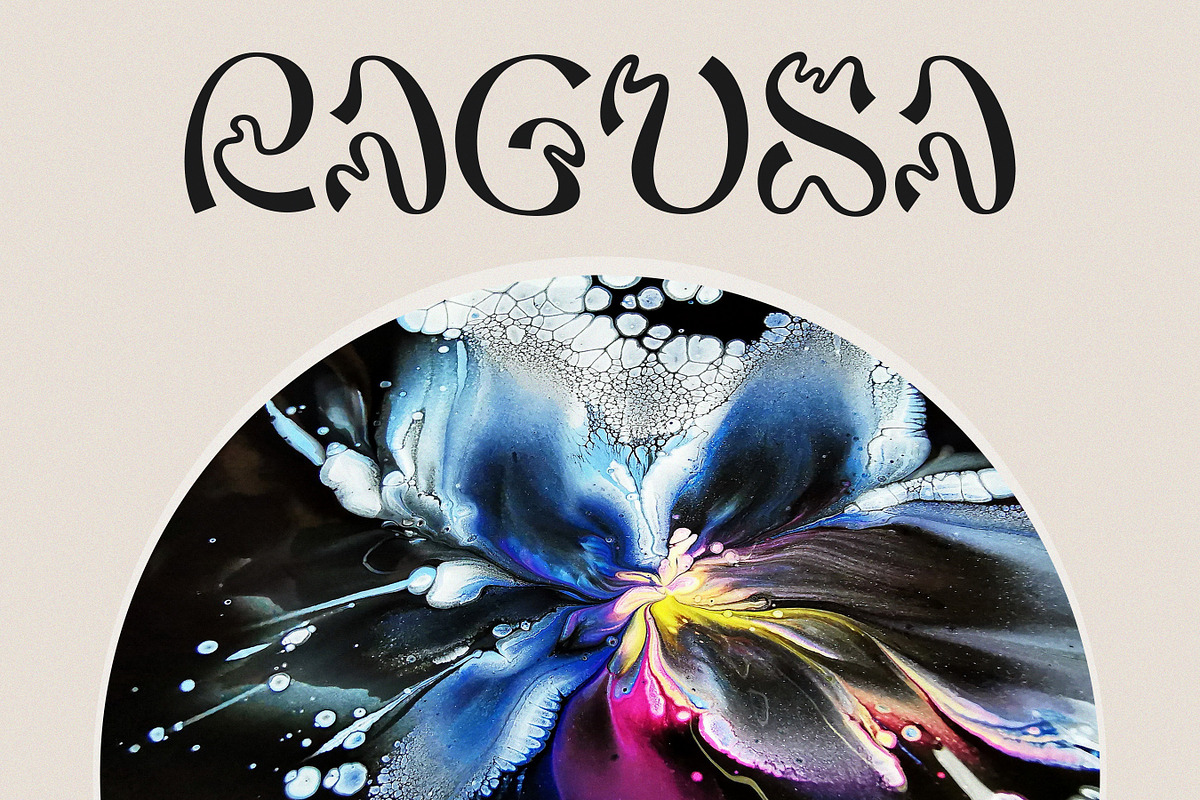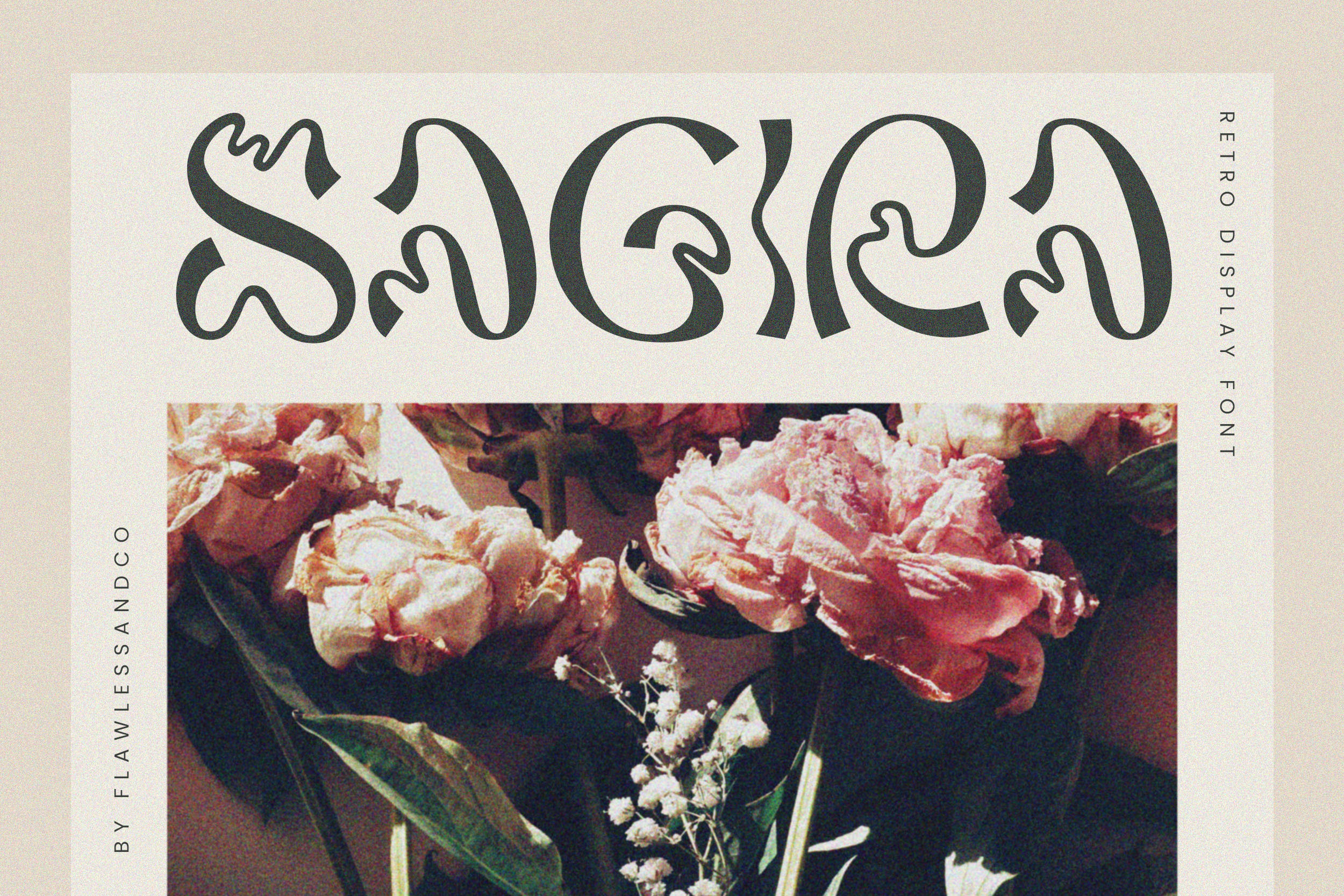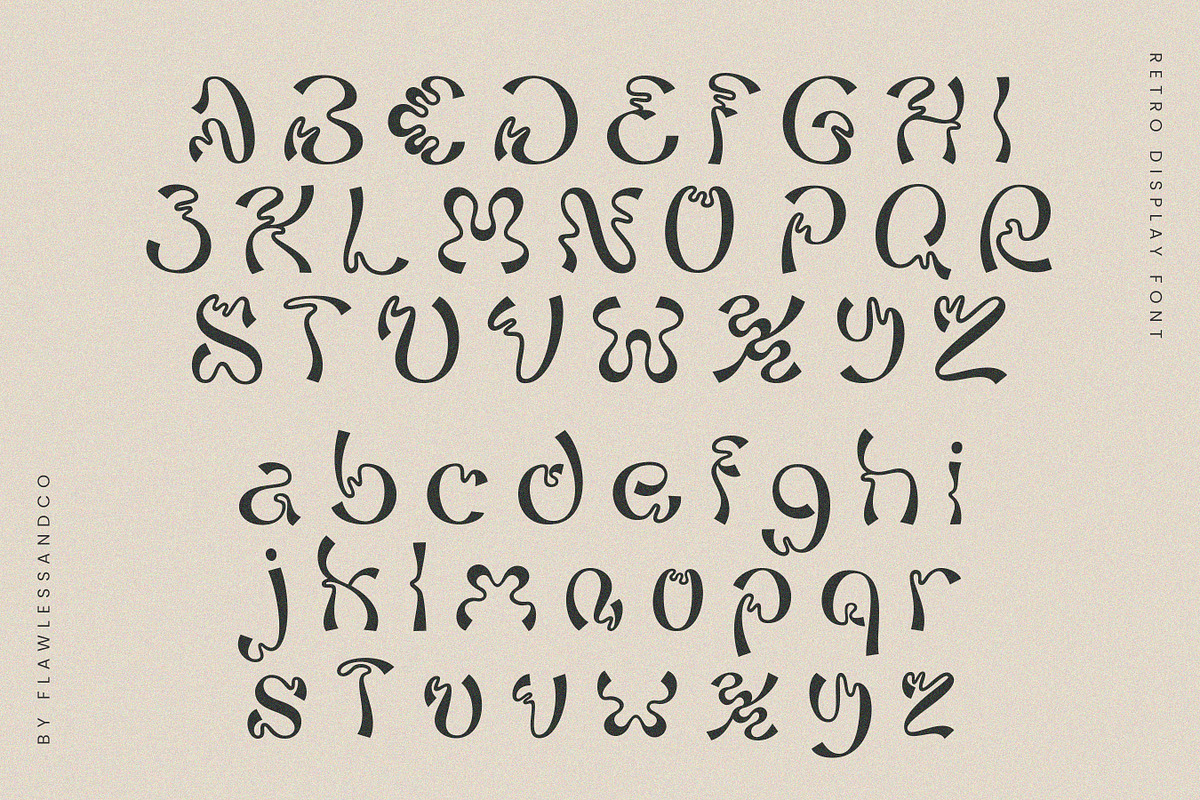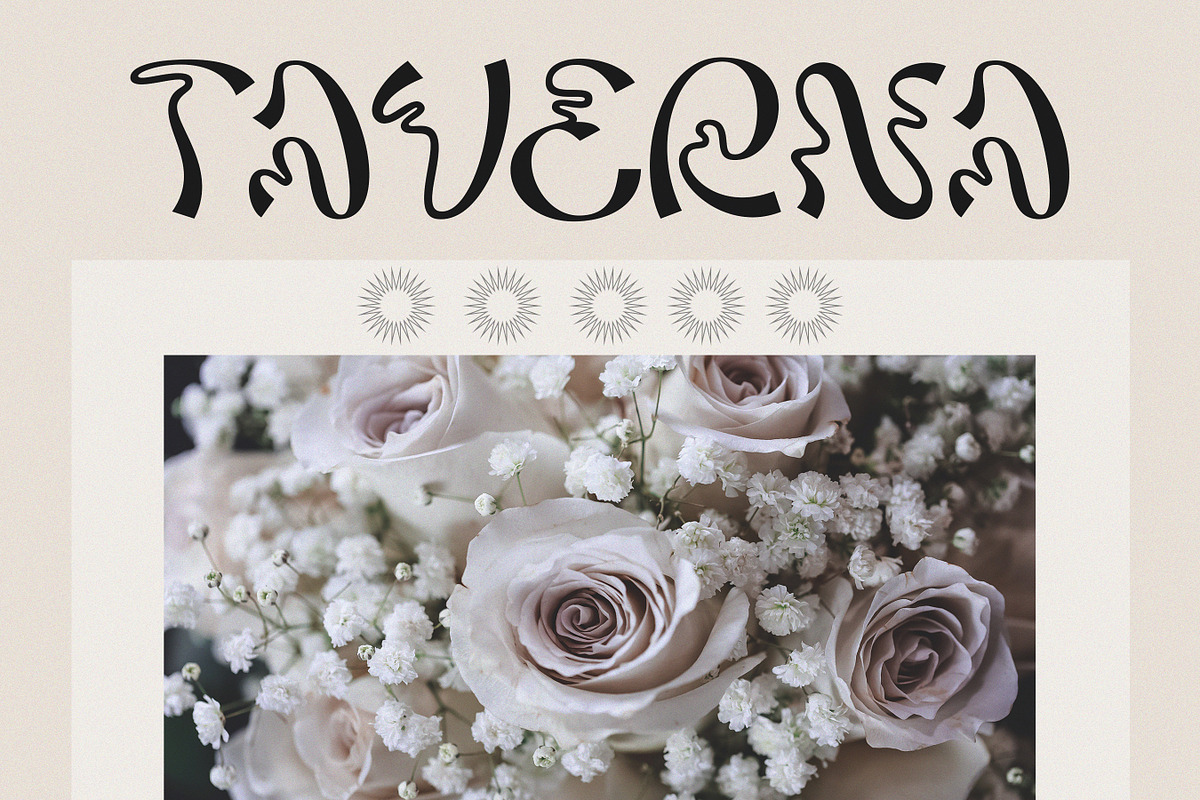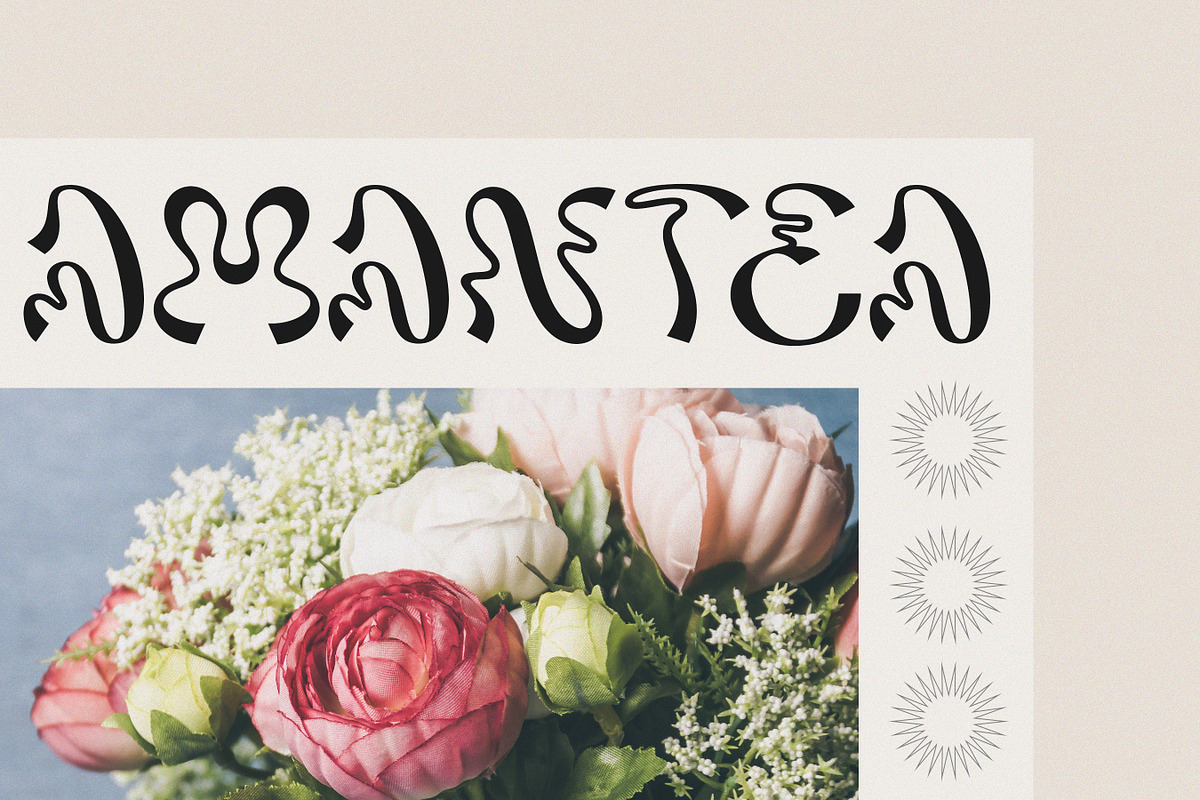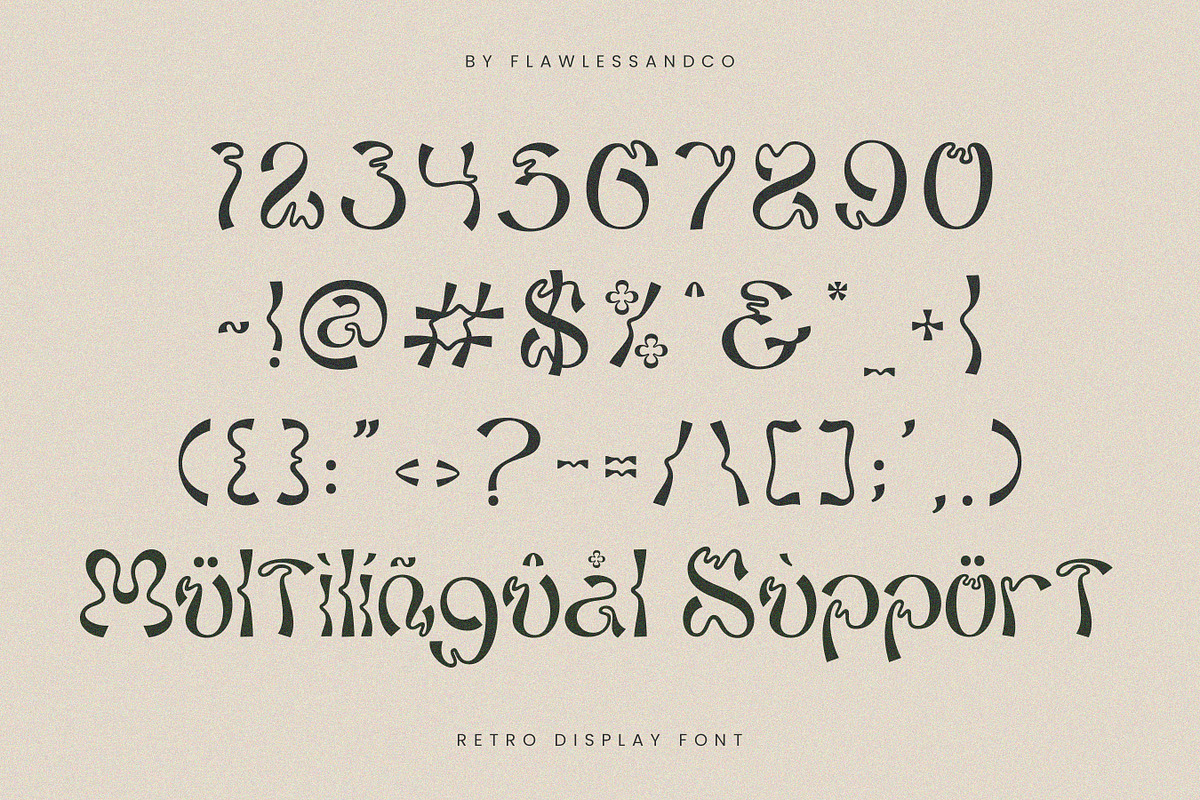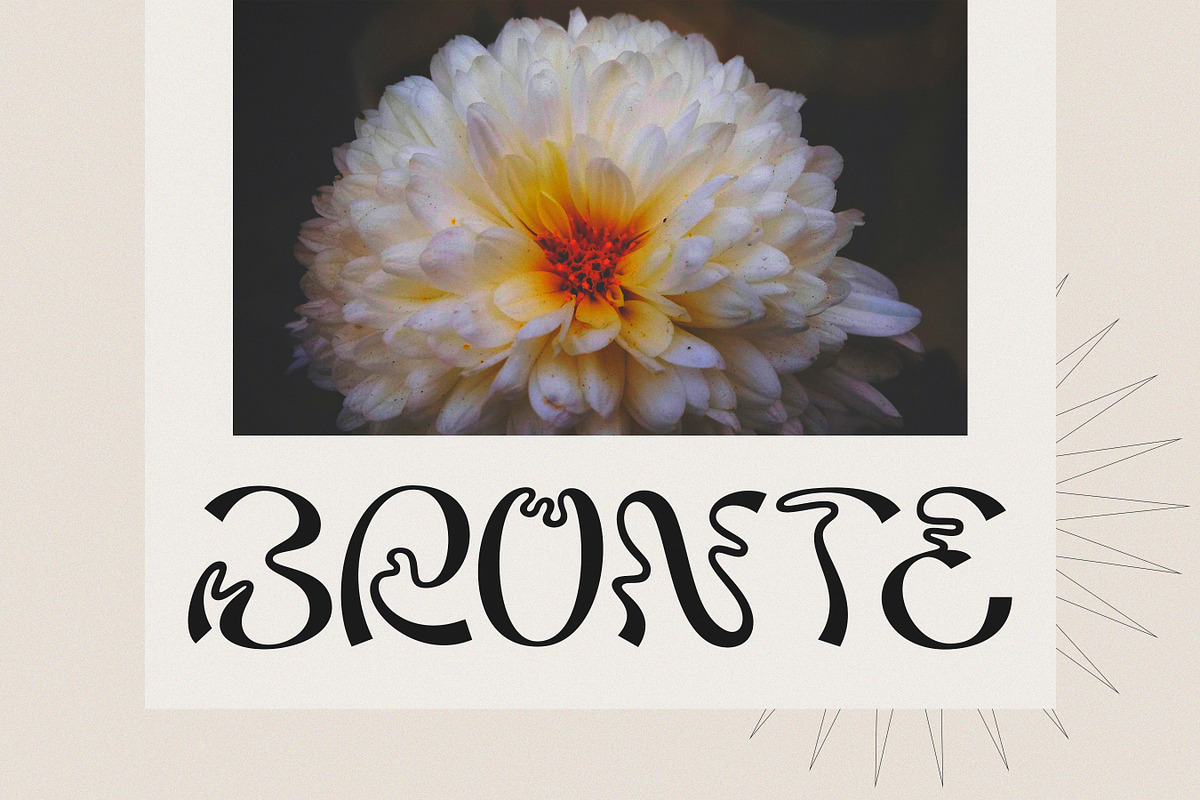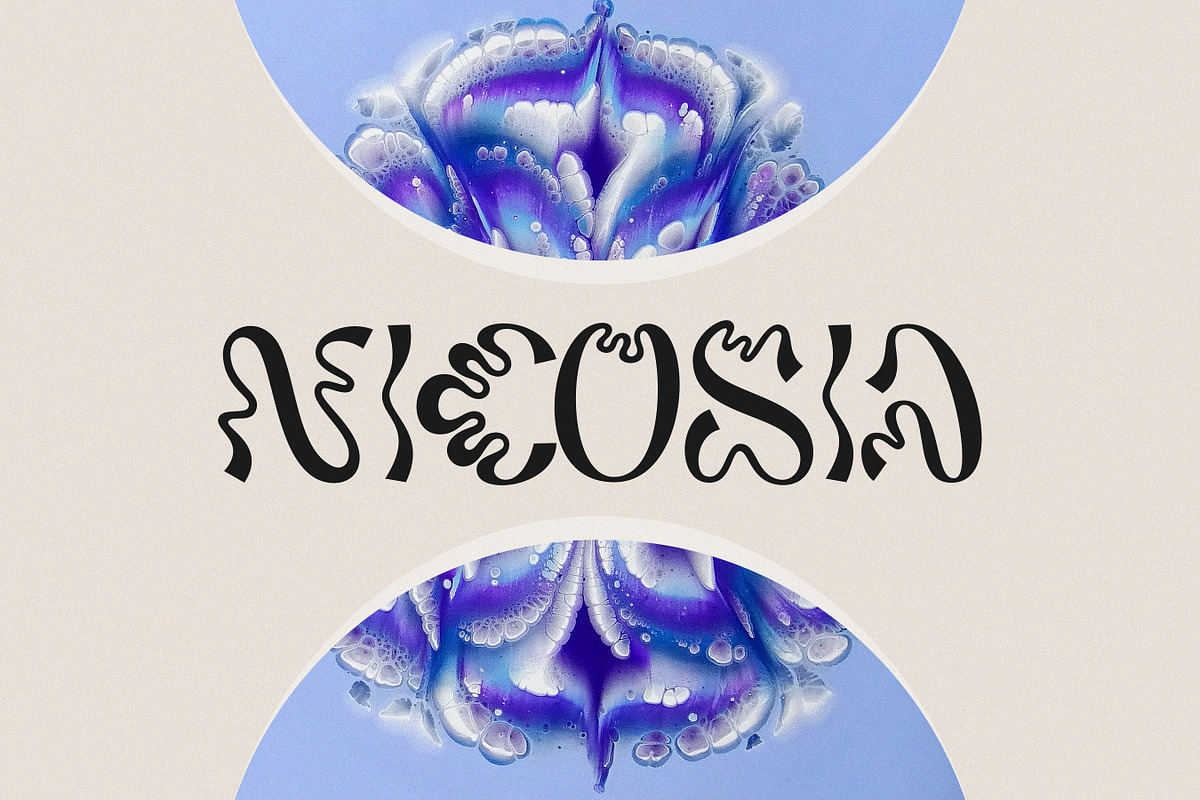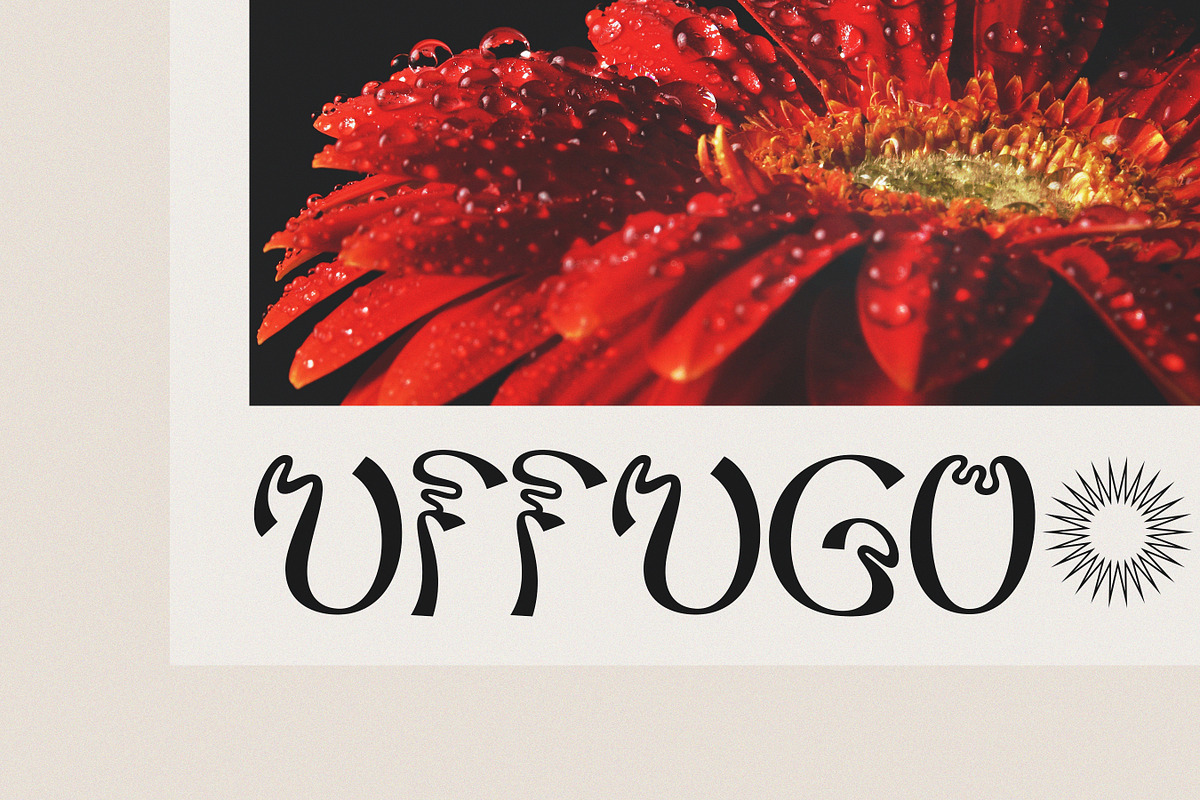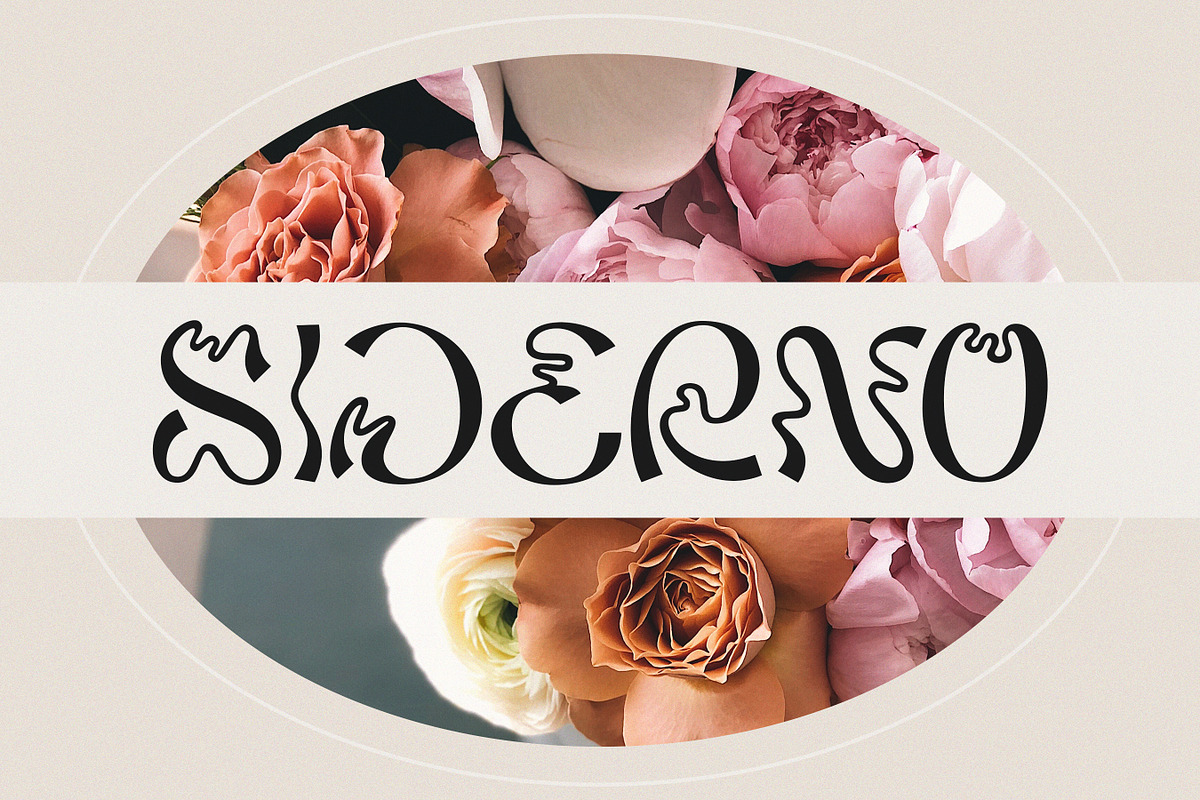
Sagira - Retro Display Font
Introducing "Sagira" - A Retro Display Font. Travel back in time with "Sagira," a nostalgic retro display font that pays homage to the past, complete with charming wavy line details that evoke a sense of vintage flair. With its unique character and retro charm, "Sagira" is designed to infuse your projects with a touch of yesteryear's style.
Multilingual Uppercase alphabet A-Z Lowercase alphabet a-z Alternate Character Numbers 0-9 Some punctuation